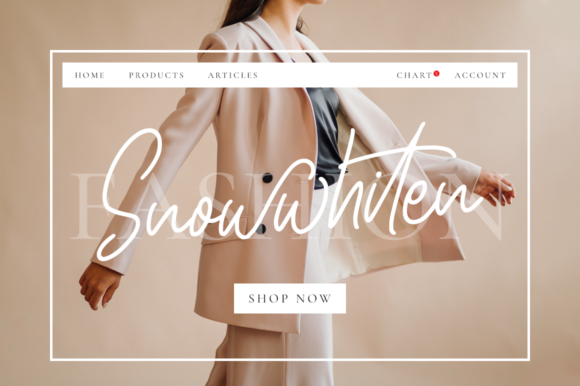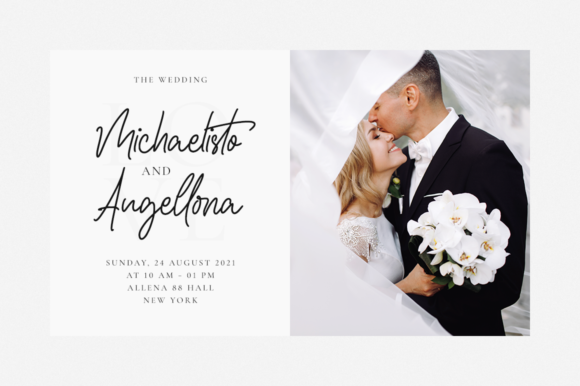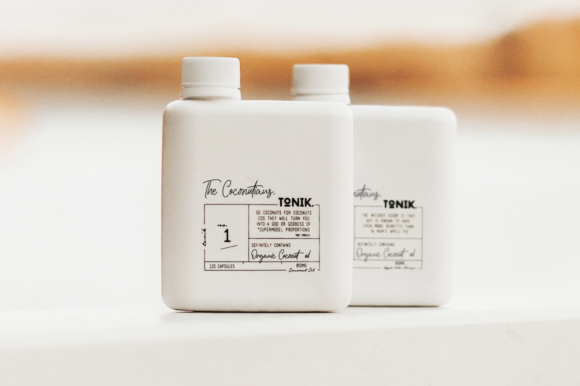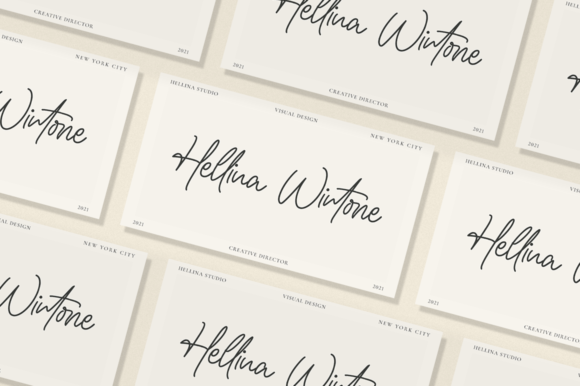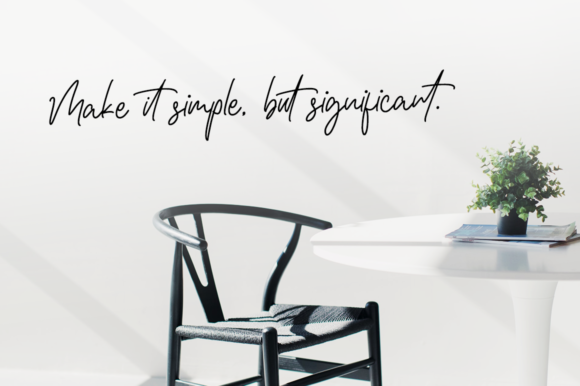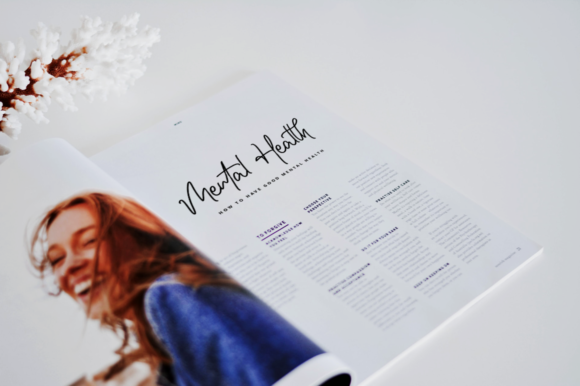
Introduction to Richmond Font
Do you remember that moment when you stumbled upon the perfect design resource? For many of us, it’s a feeling of excitement and relief all rolled into one. And today, we’re excited to introduce you to the Richmond Font, a stunning script font that will elevate your creative projects to new heights.
Richmond Font is more than just a pretty face – it’s a high-quality design tool that’s perfect for designers of all levels. With its thin lettered and elegant style, it’s a versatile font that can be used to create beautiful wedding invitations, gorgeous stationery art, eye-catching social media posts, and much more. Whether you’re looking for a free download or a premium design asset, Richmond Font is a valuable addition to any designer’s toolkit.
Key Features of Richmond Font
- High-quality design resource with a transparent background, perfect for creative projects
- Features a unique and elegant design, ideal for use in various creative projects, including branding, logos, and typography
- Includes a wide range of characters, including uppercase and lowercase letters, numbers, and special symbols
- Designed to be highly legible, even at small font sizes, making it perfect for use in digital and print media
- Resolution-independent, ensuring that the font looks great at any resolution, from low-resolution displays to high-end printing
Honest Review: Richmond Font
I recently came across the Richmond Font, and I was excited to dive in and see what it’s all about. As a designer, I’m always on the lookout for high-quality fonts that can elevate my creative projects.
One of the standout features of the Richmond Font is its clean and modern aesthetic. ✨ The font is incredibly versatile and can be used for a wide range of design projects, from logos to brochures. I was impressed by the font’s legibility and how well it pairs with different colors and backgrounds.
Another great feature of the Richmond Font is its transparent background, making it easy to use in various design scenarios. This is a game-changer for designers who need to create designs with complex layouts.
- Clean and modern aesthetic
- Highly legible and versatile
- Transparency background for easy design use
- ⚠️ Limited character set and language support
- ⚠️ Some users may find the font too minimalist
Overall, I’m impressed with the Richmond Font and would definitely recommend it to designers looking for a high-quality font for their creative projects. With its clean design and transparent background, it’s a great addition to any design resource library.
Getting the Most Out of Richmond Font
Here are a few tips for getting the most out of the Richmond Font:
- Use the font in combination with a transparent background to create a clean and modern look.
- Experiment with different font sizes and styles to add visual interest to your designs.
- Use the font in conjunction with other design elements, such as images and graphics, to create a cohesive and engaging design.
The Richmond Font is a versatile design resource that can be used in a variety of creative projects, including:
- Graphic design and branding projects.
- Web design and development projects.
- Print design and advertising projects.